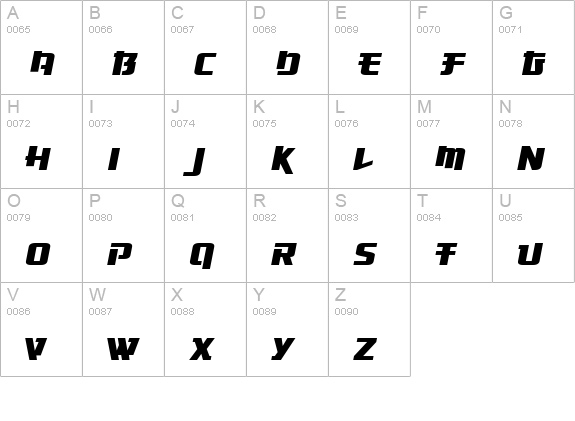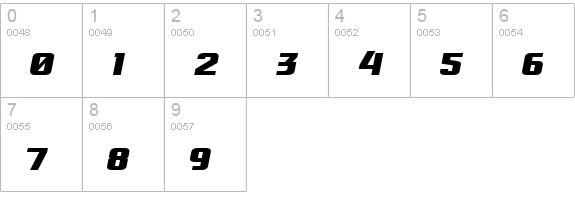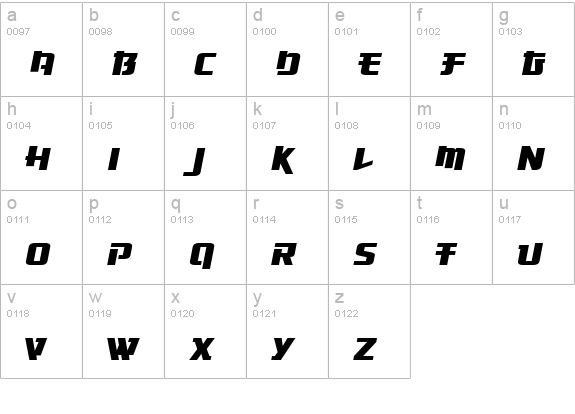
Introducing Osaka-Sans Serif font, a modern and versatile typeface perfect for a wide range of design projects. This sleek and clean font offers a contemporary look with its minimalistic design and sharp angles, making it ideal for both digital and print applications. Osaka-Sans Serif font is available for free download at FontsMarket.com, allowing designers and creatives to easily access this high-quality typeface for their projects. Whether you're working on branding, editorial design, web design, or any other creative endeavor, Osaka-Sans Serif font is sure to elevate your work with its timeless appeal and professional finish. With its legible and stylish letterforms, Osaka-Sans Serif font brings a sense of sophistication to any design layout. Its versatility and modern aesthetic make it a valuable addition to any designer's font library. Download Osaka-Sans Serif font for free today at FontsMarket.com and add a touch of elegance to your next project.